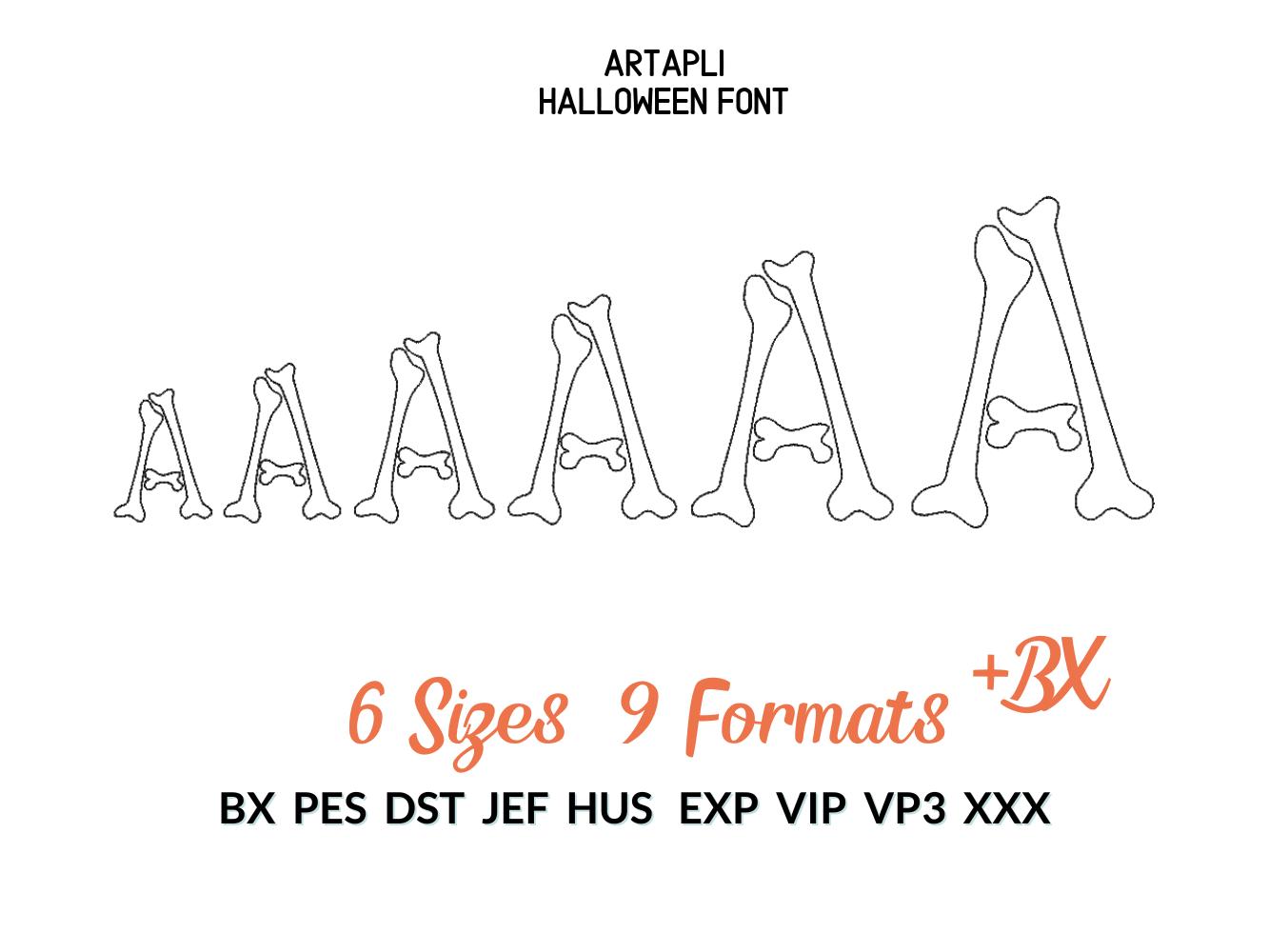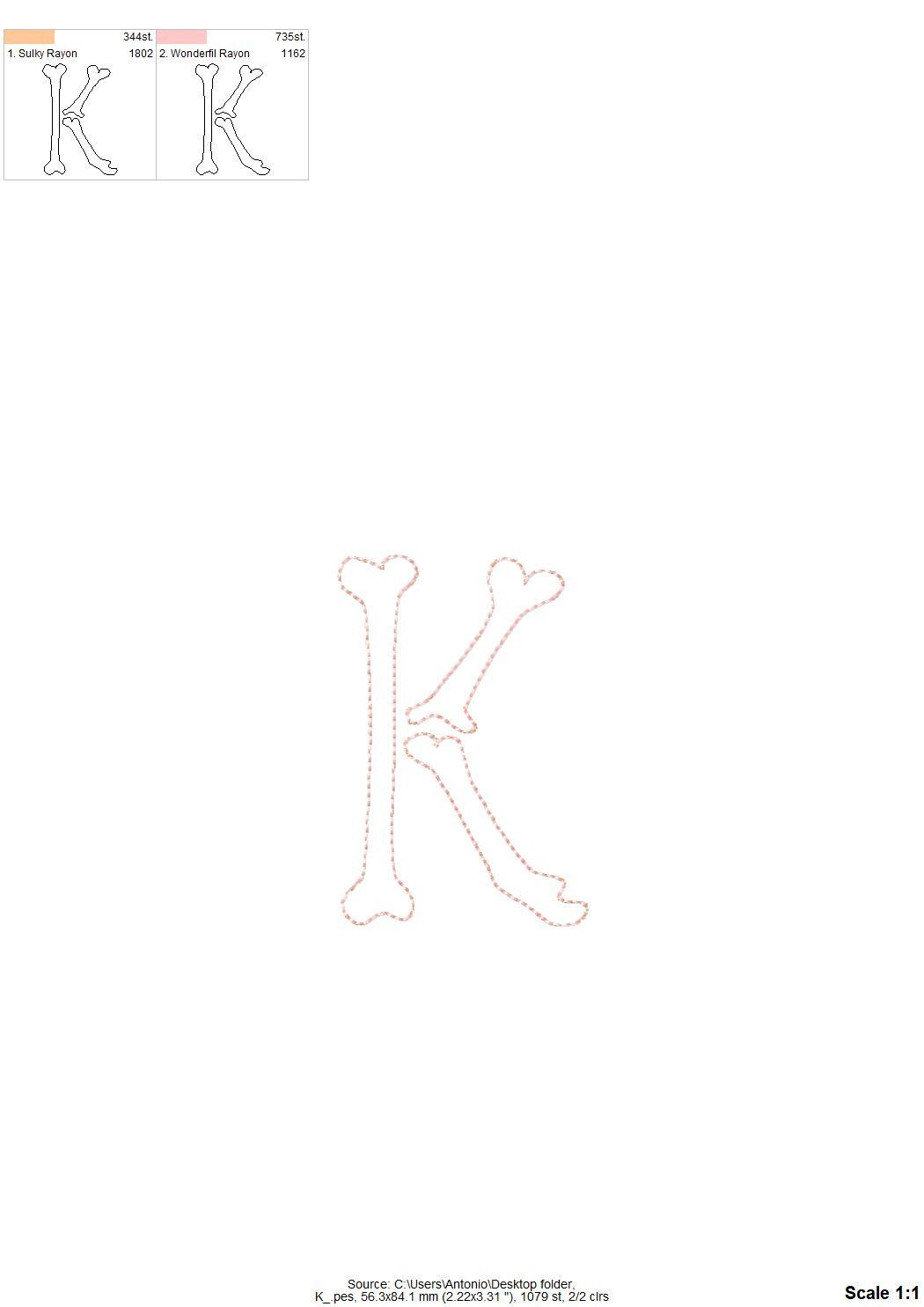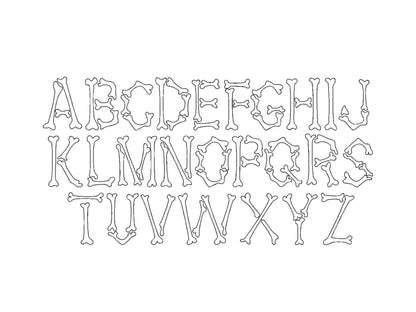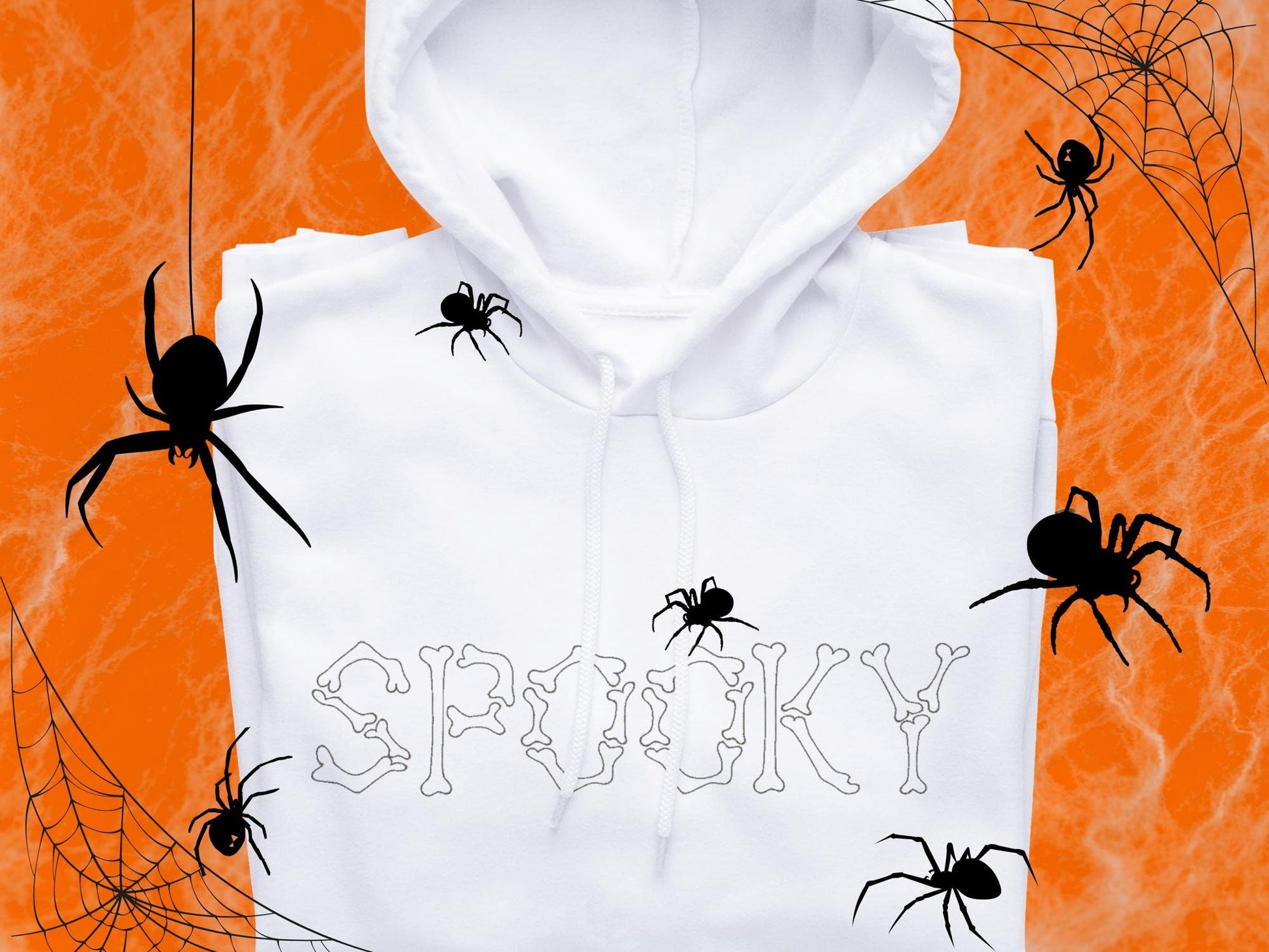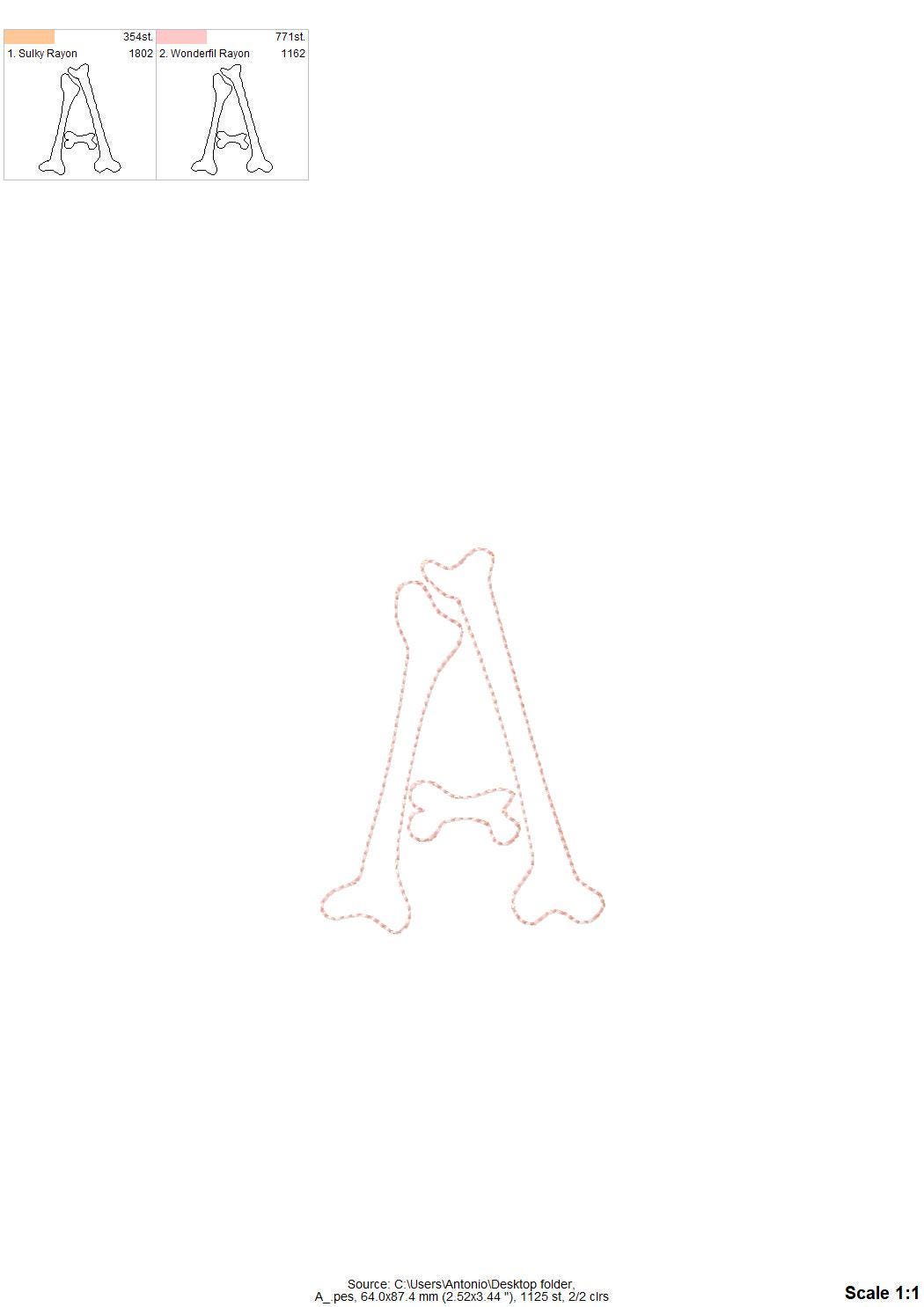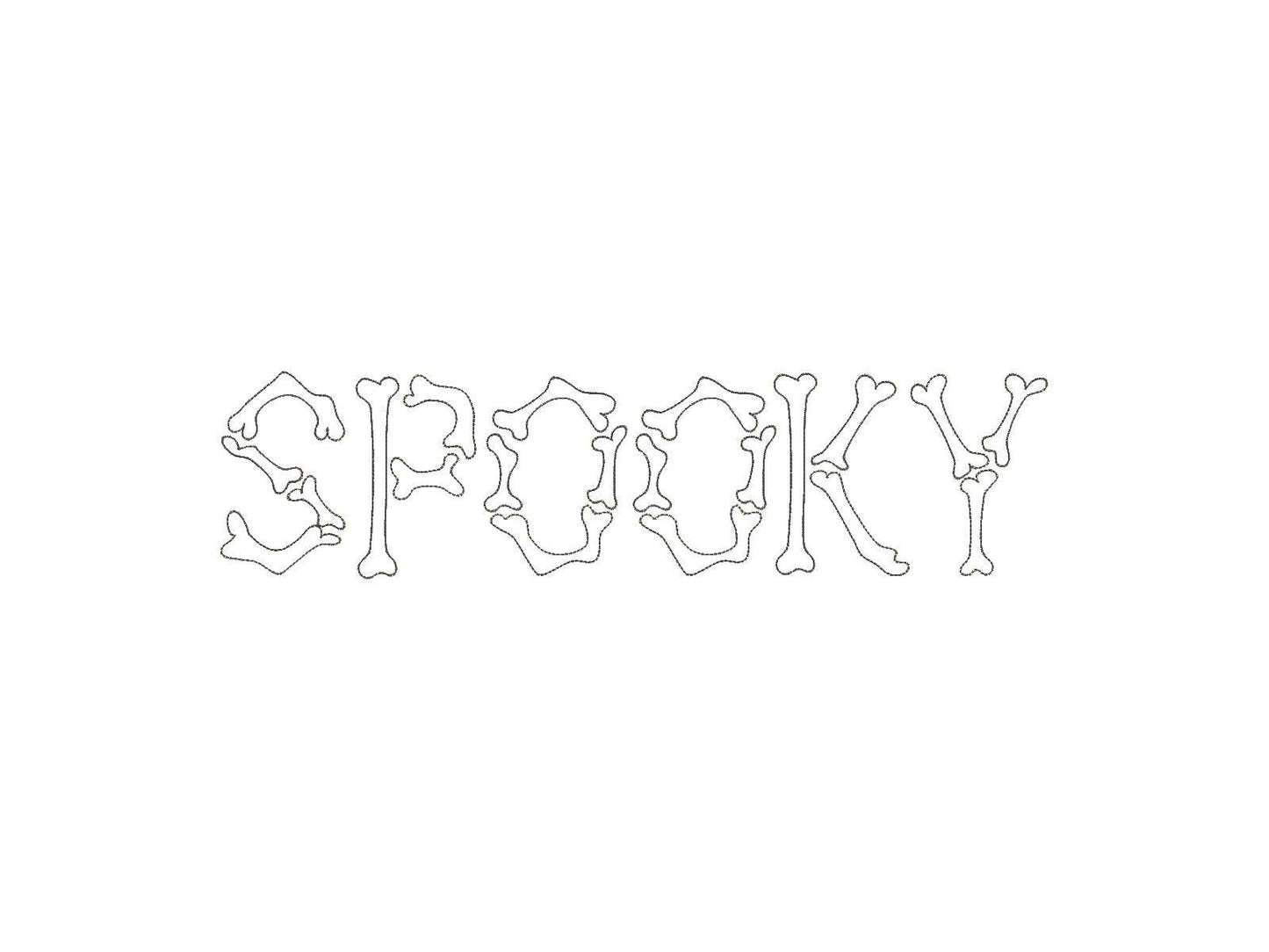
Halloween Skeleton Bones Font Raggedy Edge Applique
Or click to open the linkA Halloween skeleton bones font in raggedy edge applique, for spooky names and 'BOO' on shirts, bags and pillows.
Raggedy, open-edge applique capital letters A to Z in six sizes: 2.4, 2.8, 3.4, 4, 5 and 6 inches.
- Skeleton bones raggedy applique font
- Uppercase A-Z